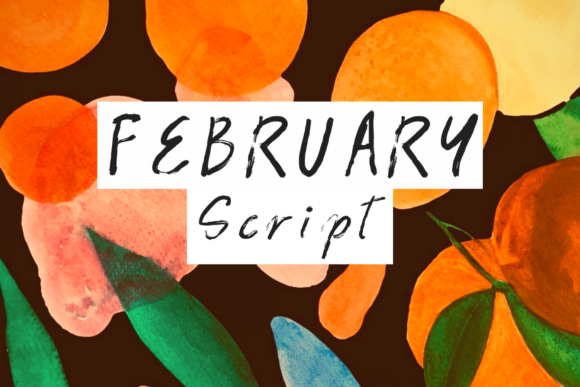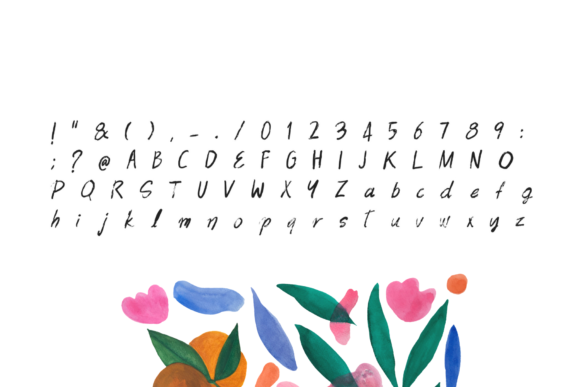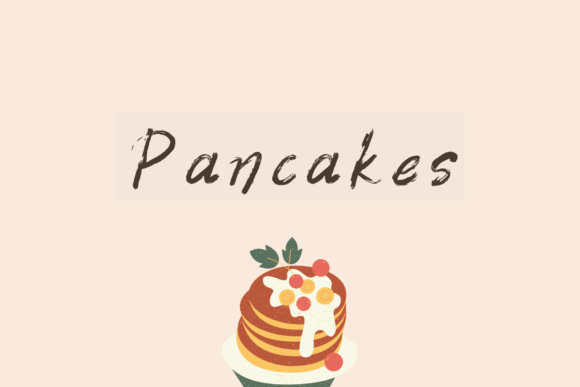
About February Script Font
February Script is a simple and brushed handwritten font. Add it to your most creative ideas and notice how it makes them come alive!